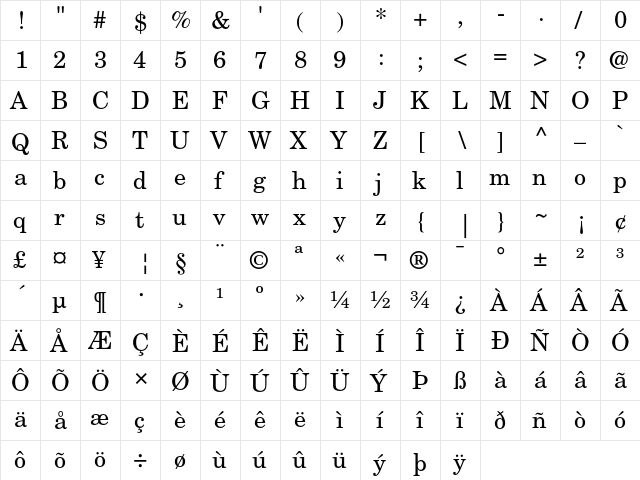
New Century Schoolbook Roman
Design Context for New Century Schoolbook Typeface
New Century Schoolbook offers clean, dependable letterforms without strong stylistic allegiance, making it a practical choice for designers who need flexibility.
Pro Tip: Use New Century Schoolbook in both headline and body roles to test its range before committing to a single application.